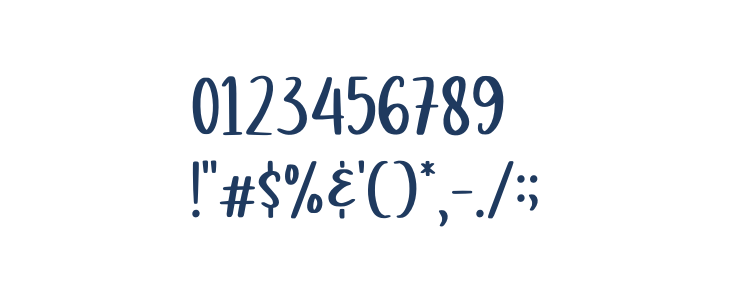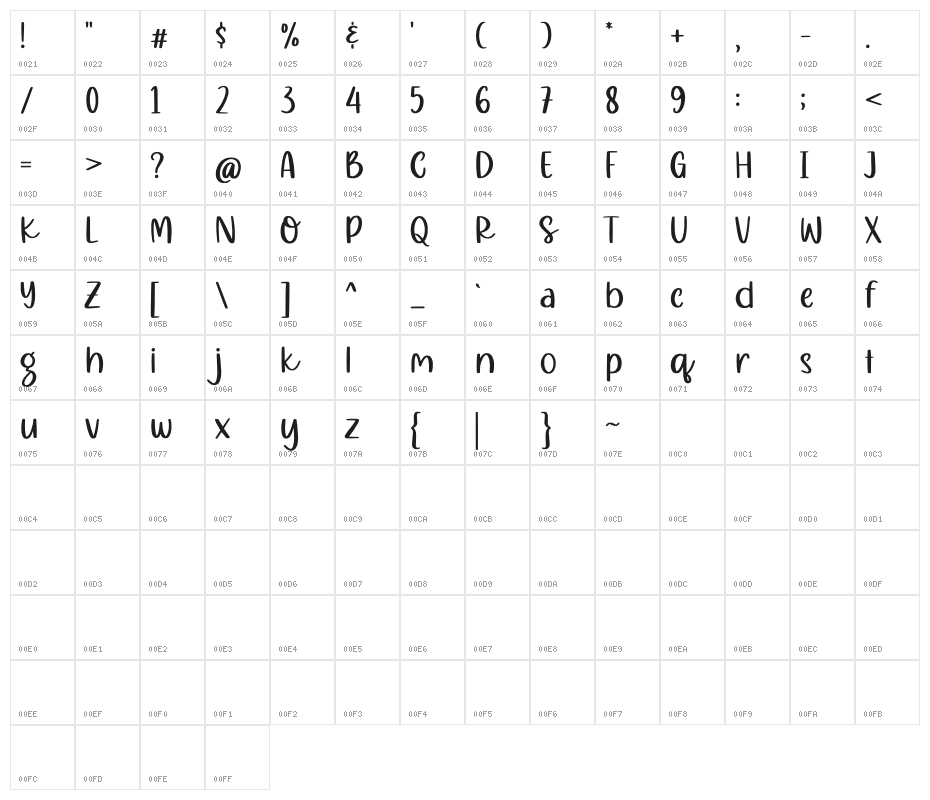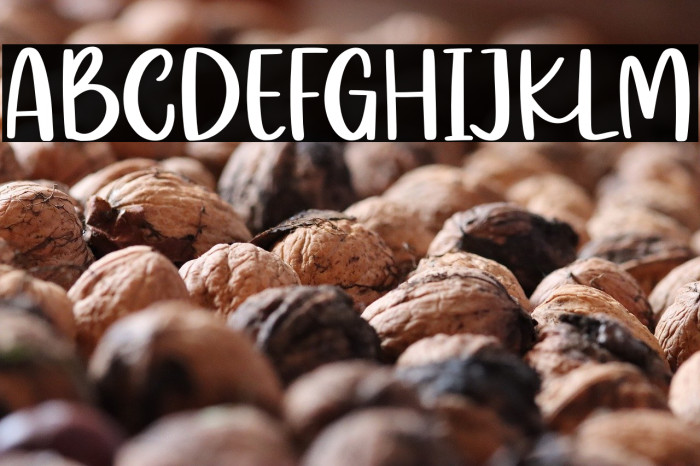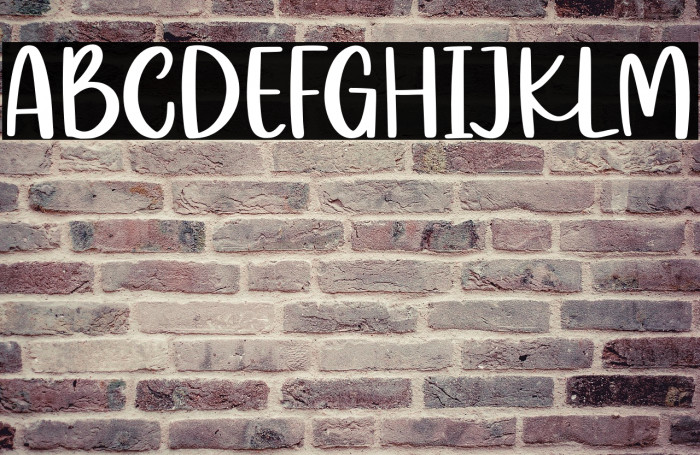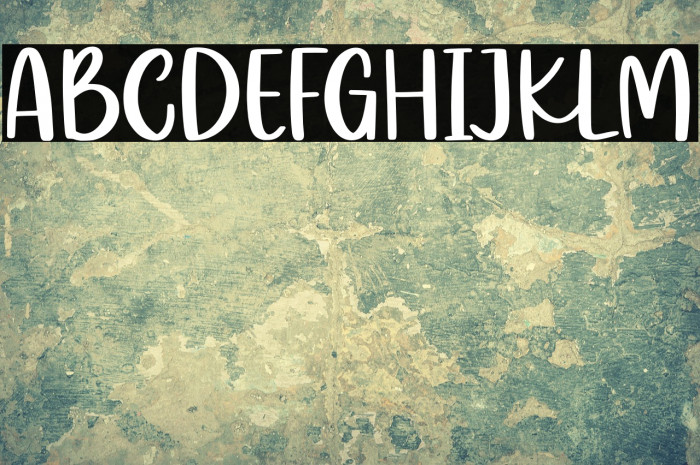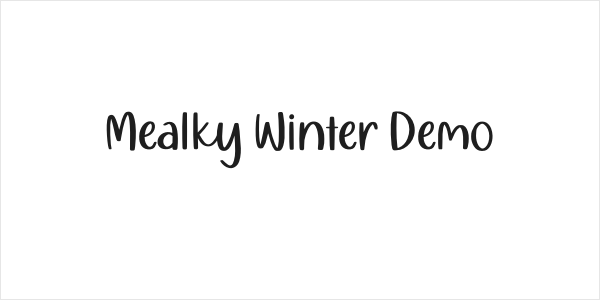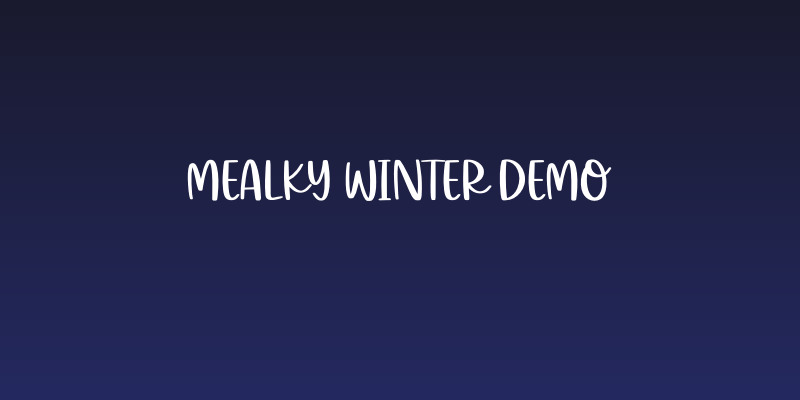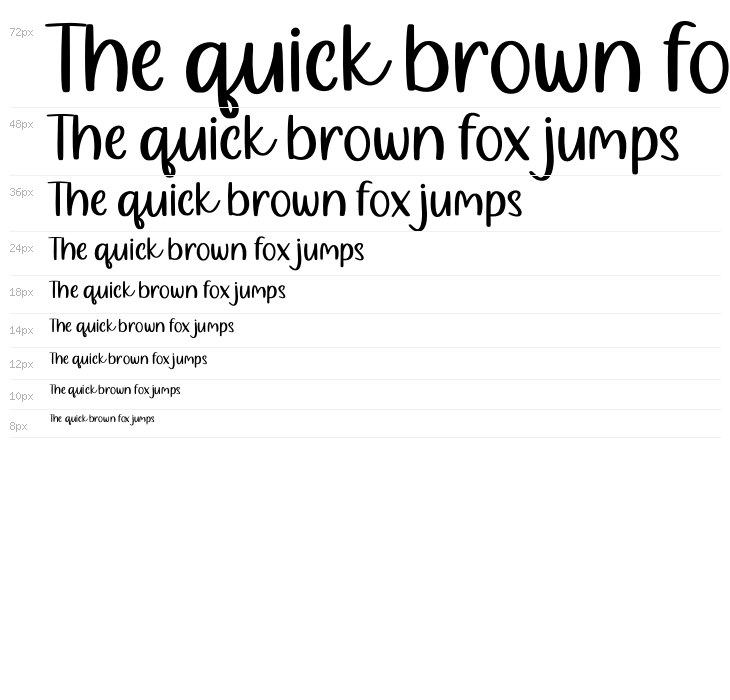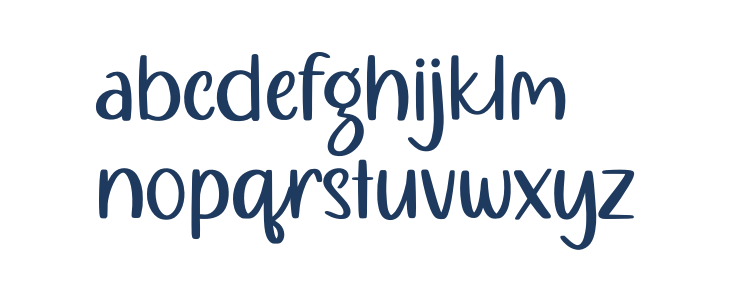
Mealky Winter Demo Font
Mealky Winter Demo Description
This font features a playful and casual handwritten style, characterized by its smooth, rounded edges and consistent stroke width. The letters are slightly slanted, adding a dynamic and informal feel. Uppercase and lowercase letters maintain a cohesive look, with a slight variation in size that enhances its handwritten appeal. The numerals and special characters are crafted with the same attention to detail, ensuring readability and style consistency across all characters. This font is perfect for projects that require a personal touch, such as greeting cards, invitations, or social media graphics.